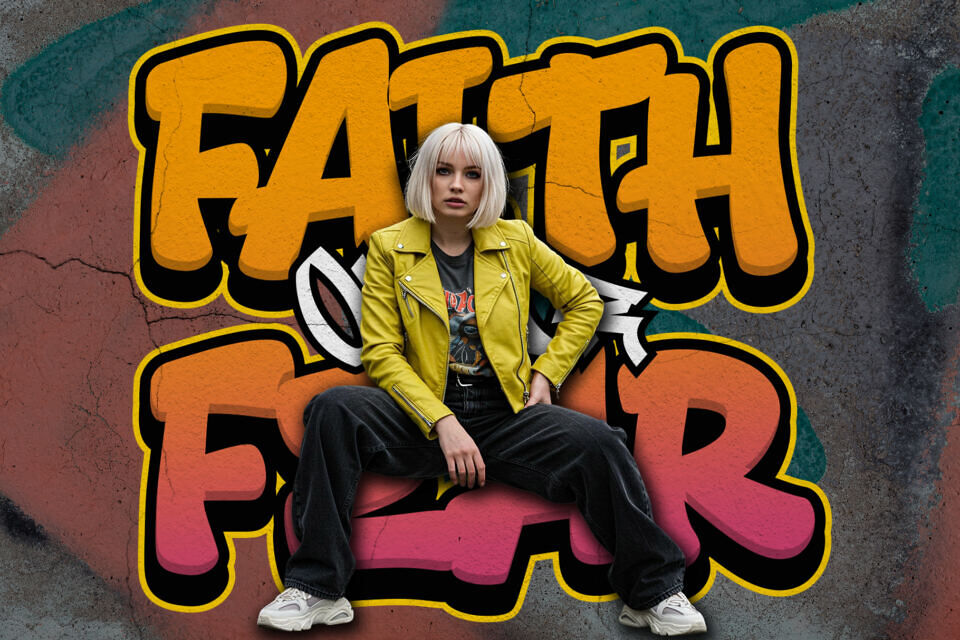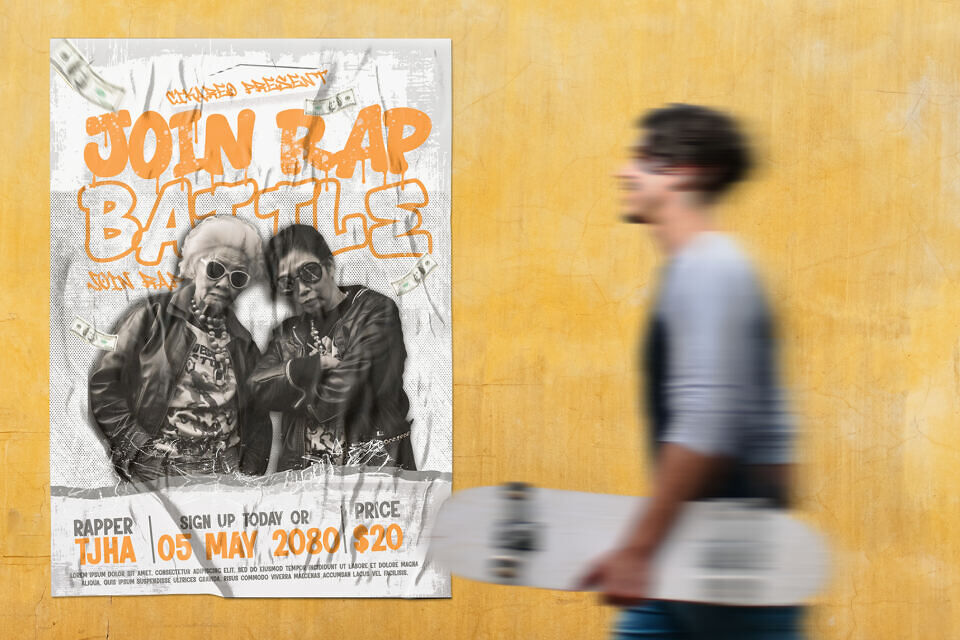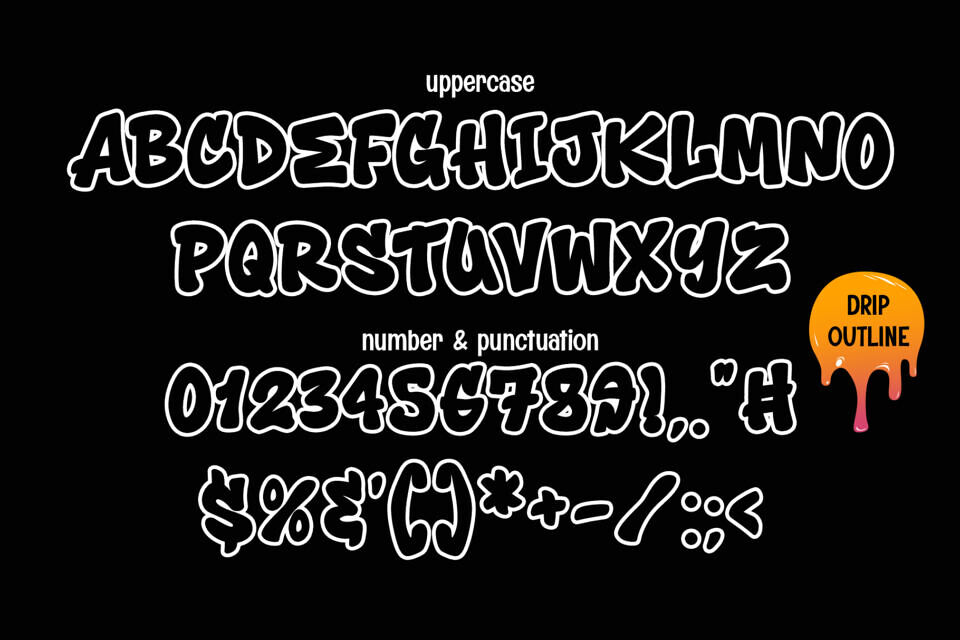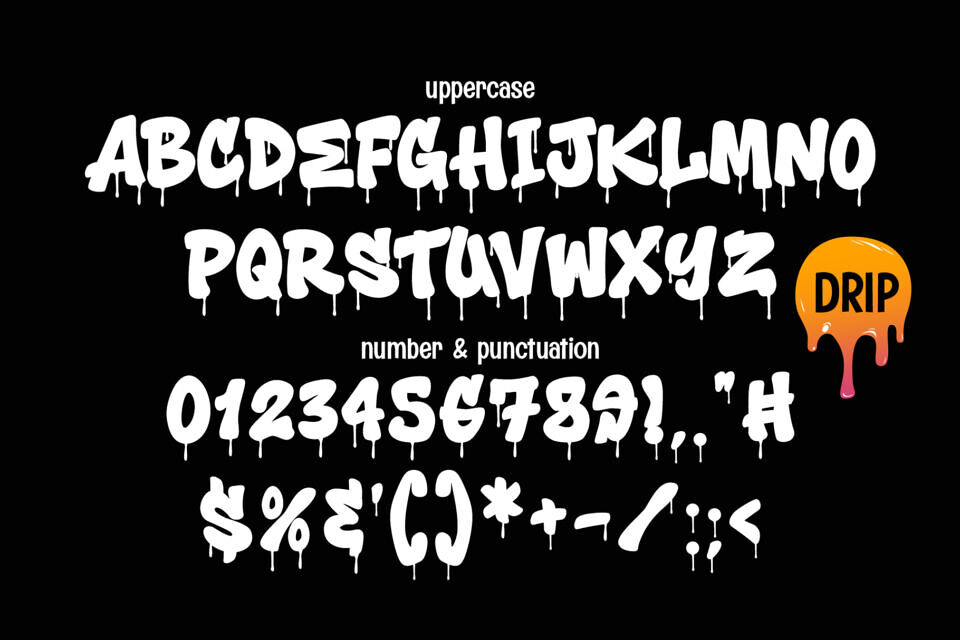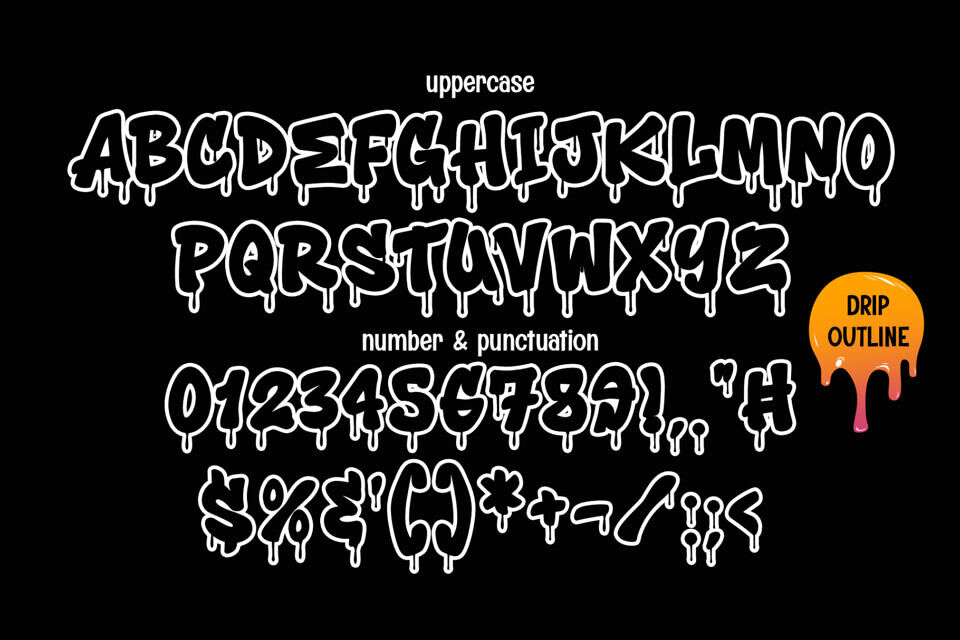
Toxic Rebel Font
Toxic Rebel is a bold, urban-inspired typeface designed to capture the raw energy of street culture. Featuring four versatile styles—Clean, Drip, Outlined Regular, and Outlined Drip—this graffiti font combines edgy aesthetics with readability and full multilingual support.
Ideal for streetwear branding, posters, album covers, social media graphics, and merchandise, Toxic Rebel delivers authentic graffiti style with professional usability. Optimized for digital and print, it ensures impactful headlines, layered effects, and creative flexibility, making it a must-have font for designers seeking rebellious, high-impact visuals.